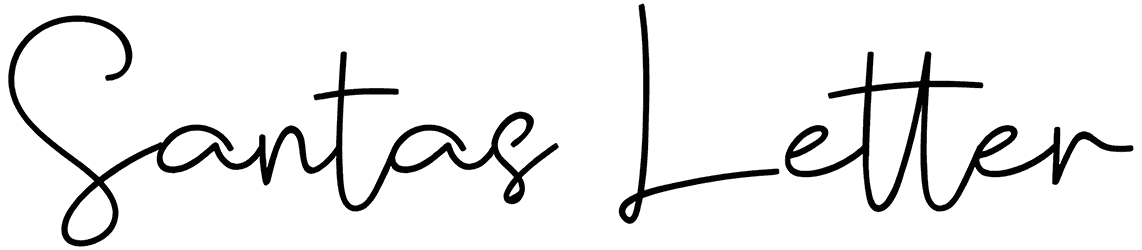
Santas Letter Font
A realistic handwritten font like the present item can be used for different modern or classic designs. The minimal and smooth style of letters will make your words more impressive, and with an almost full coverage of characters, this script font gives you great freedom. Set the Santa’s Letter font on your product introduction post on social media and communicate well with your followers.
Santa’s Letter is an exquisite handwritten font, masterfully designed to become a true favorite. It maintains its classy calligraphic influences while feeling contemporary and fresh.